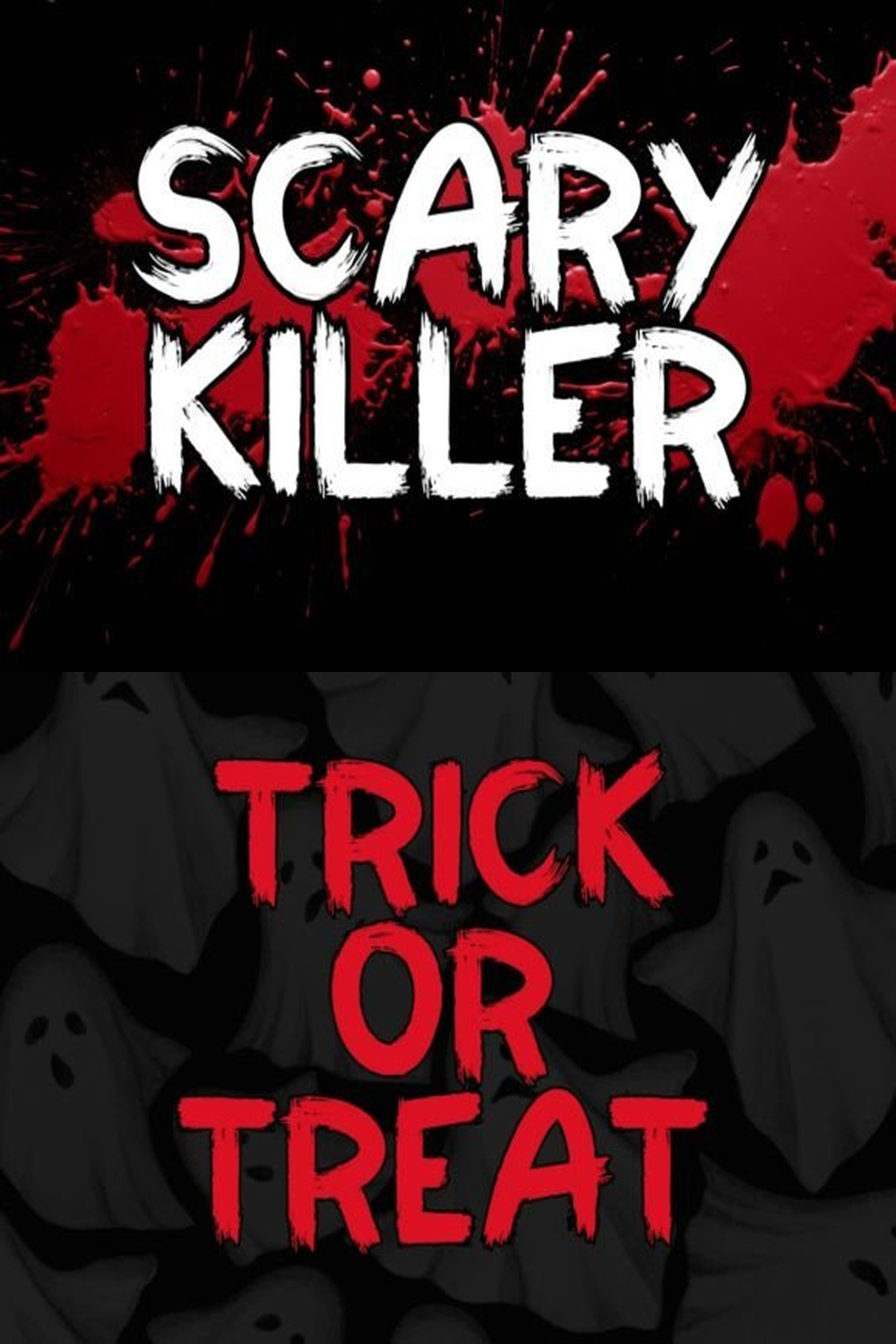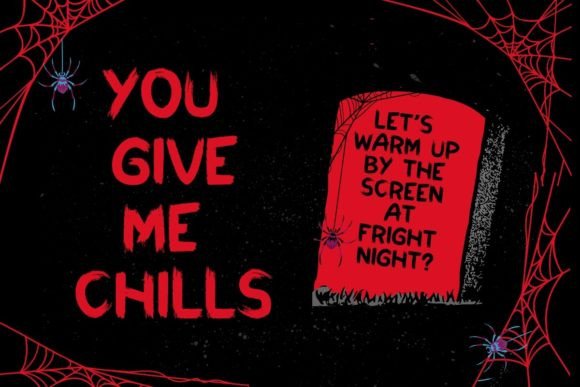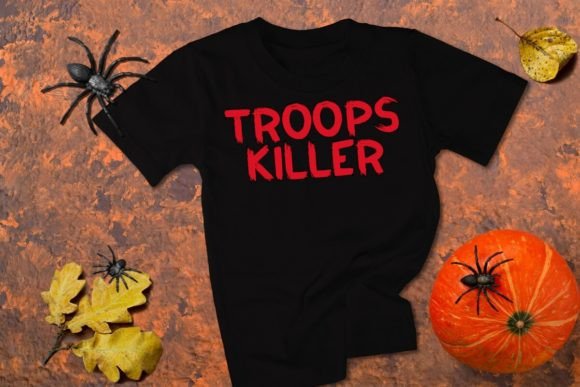
Scary Killer Font
About the Scary Killer Font
Explore the possibilities with Scary Killer Font, a font that offers both beauty and functionality. Scary Killer font a Horror Halloween font. It will look fantastic on all your project designs including t-shirt designs, mug designs, digital designs, crafts, cards, and any projects!